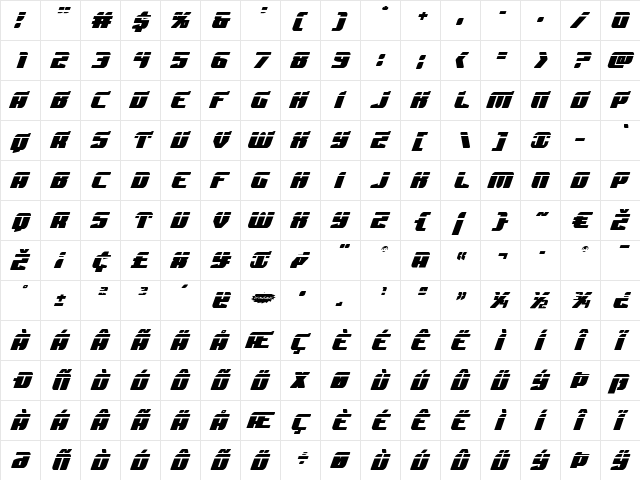
Spartaco Laser Regular
Design Context for Spartaco Laser Typeface
Spartaco Laser is a composed and adaptable typeface that performs quietly and consistently across a wide range of design contexts.